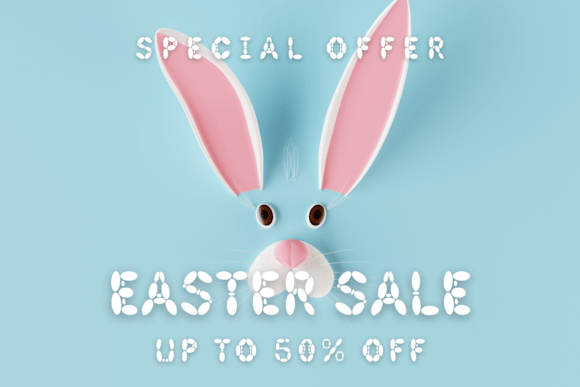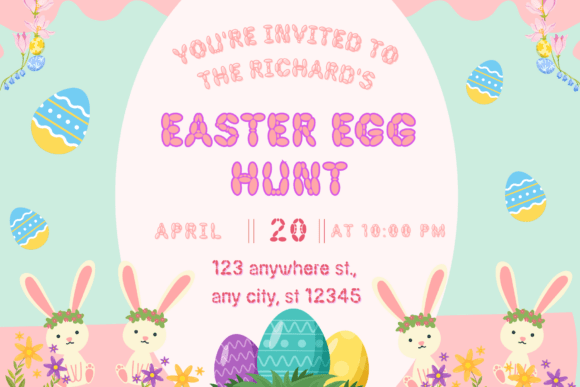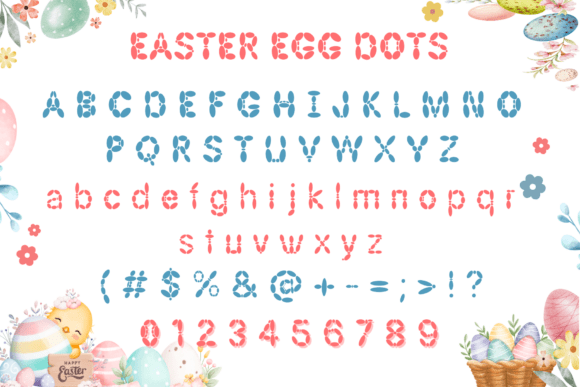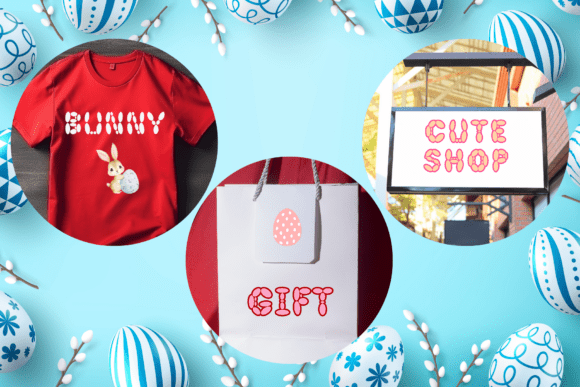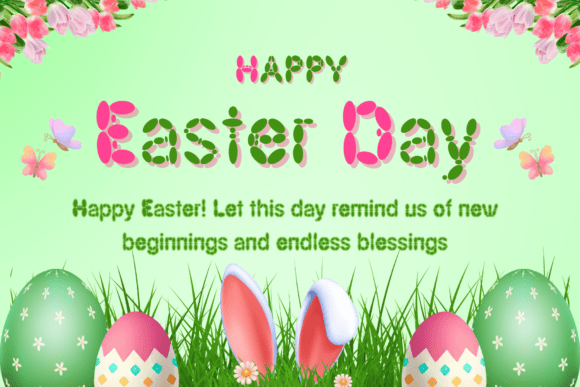
Adding a Touch of Easter Magic to Your Designs
Have you ever stumbled upon a font that instantly transports you to a place of creativity and joy? That’s exactly what happens when you discover the Easter Egg Dots Font. This charming decorative font is the perfect way to infuse your designs with the playful spirit of Easter.
Each letter in the Easter Egg Dots Font is carefully crafted from small egg-shaped elements, creating a fun and eye-catching mosaic style that’s sure to delight kids and adults alike. Whether you’re working on an Easter-themed design, a spring project, or a kids’ craft, this font is the ideal choice for adding a touch of whimsy and fun to your creations.
As a designer, you know how valuable it is to have a versatile and unique font in your toolkit. The Easter Egg Dots Font is a valuable addition to any design library, offering endless possibilities for creative expression and design inspiration.
- Unique Characteristics: Easter Egg Dots Font features a playful, hand-drawn design with intricate dots and patterns, making it perfect for creating whimsical and eye-catching designs
Easter Egg Dots Font Review
Overall, I think the Easter Egg Dots Font is a delightful and playful choice for any project that needs a touch of whimsy. ✨ Here are some of its strengths:
- Unique and eye-catching design that adds visual interest to any text
- Versatile and can be used for a variety of projects, from kids’ activities to branding materials
- Fun and childlike feel that’s perfect for Easter-themed projects or designs targeting a young audience
However, there are some limitations to consider: ⚠️
- May not be suitable for formal or professional projects due to its playful and childish nature
- Some letters may be difficult to read or recognize, particularly in smaller font sizes
- May not be compatible with all font styles or designs
Overall, I think the Easter Egg Dots Font is a great choice for projects that need a lighthearted and playful touch. While it may not be suitable for all types of projects, it’s a fun and creative option that’s sure to add some visual interest to your designs.
Use the Easter Egg Dots Font to add a playful and whimsical touch to your designs.
Common use cases include:
– Children’s party invitations
– Easter-themed designs
– Whimsical illustrations
– Creative headings and titles
Remember to experiment with different font sizes and styles to get the most out of the Easter Egg Dots Font.
Q: Can I customize the Easter Egg Dots Font for my own project?
Yes, the Easter Egg Dots Font is a vector-based font, which means it can be easily customized using design applications such as Adobe Illustrator or Sketch. You can adjust the size, color, and spacing of the font to fit your specific design needs.